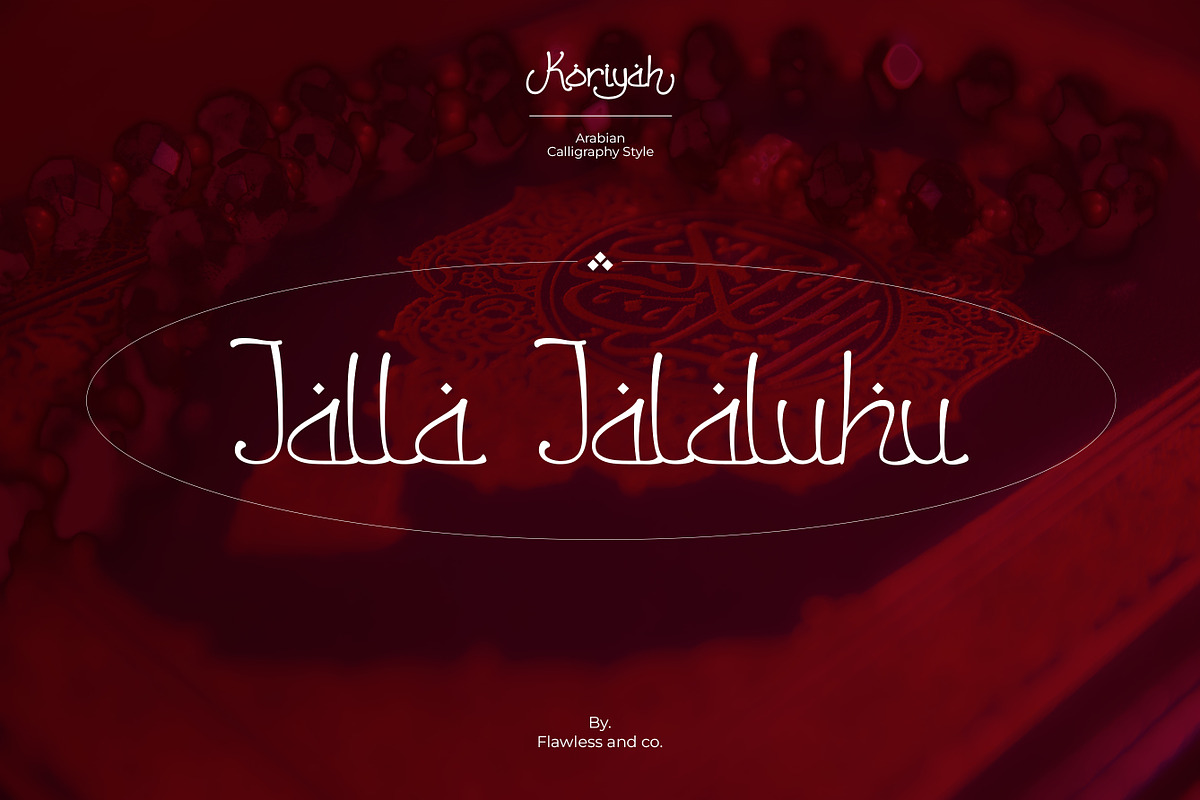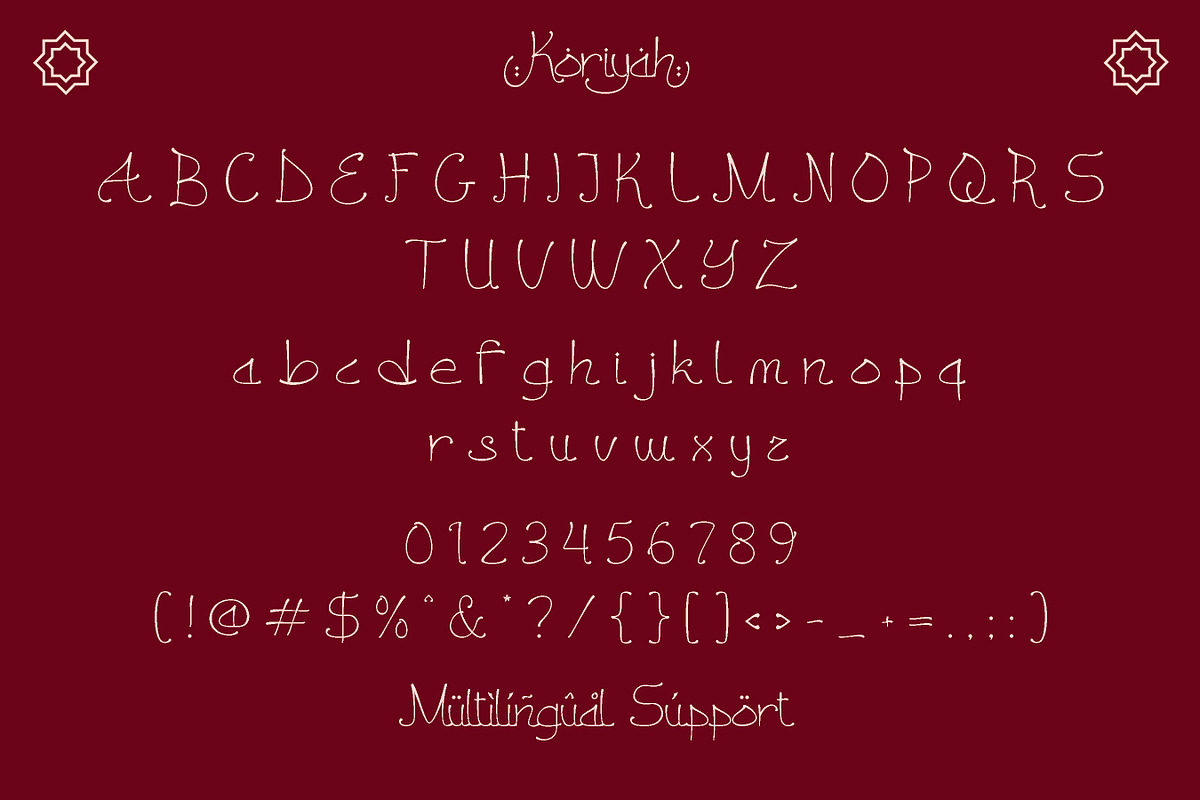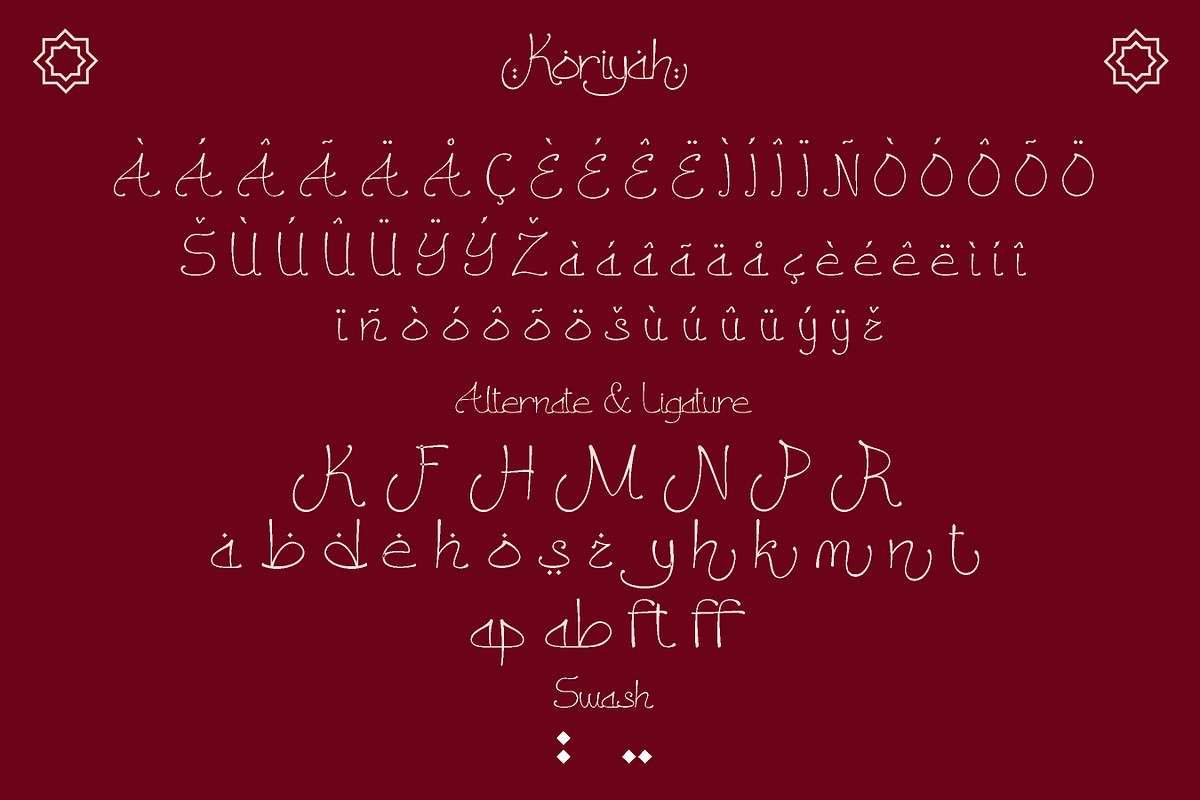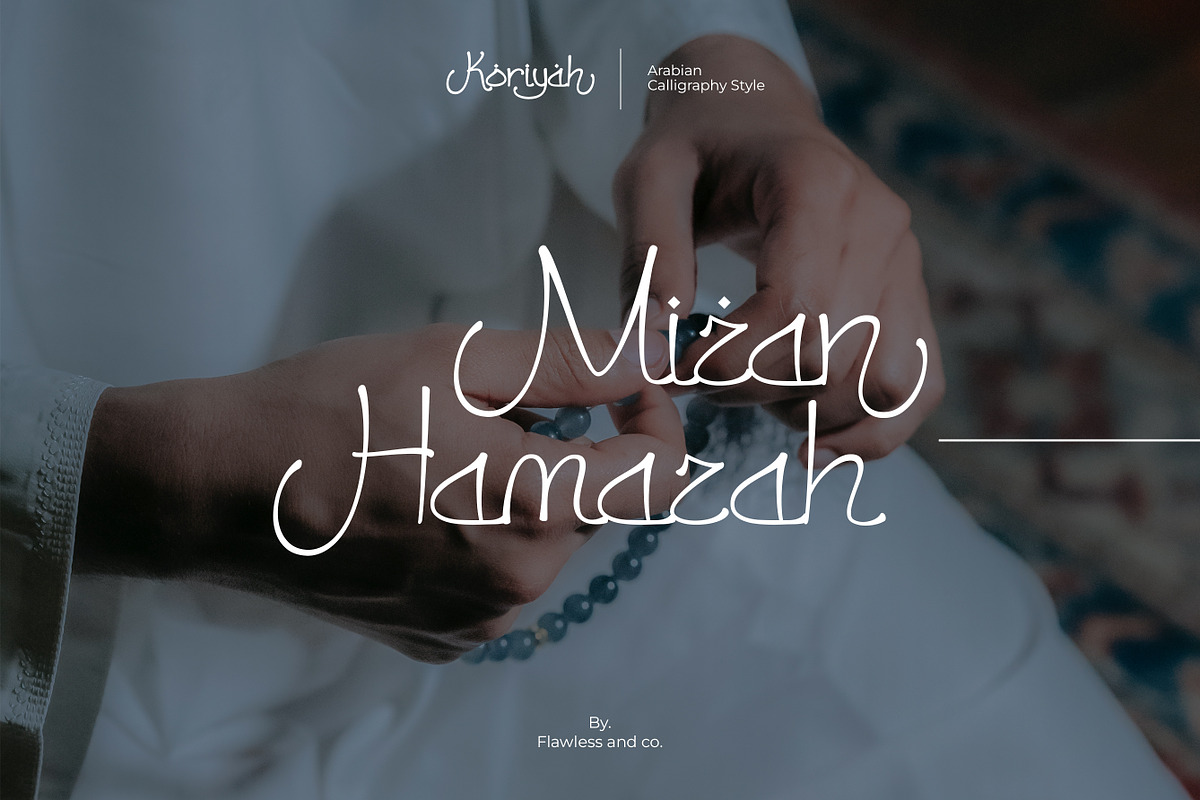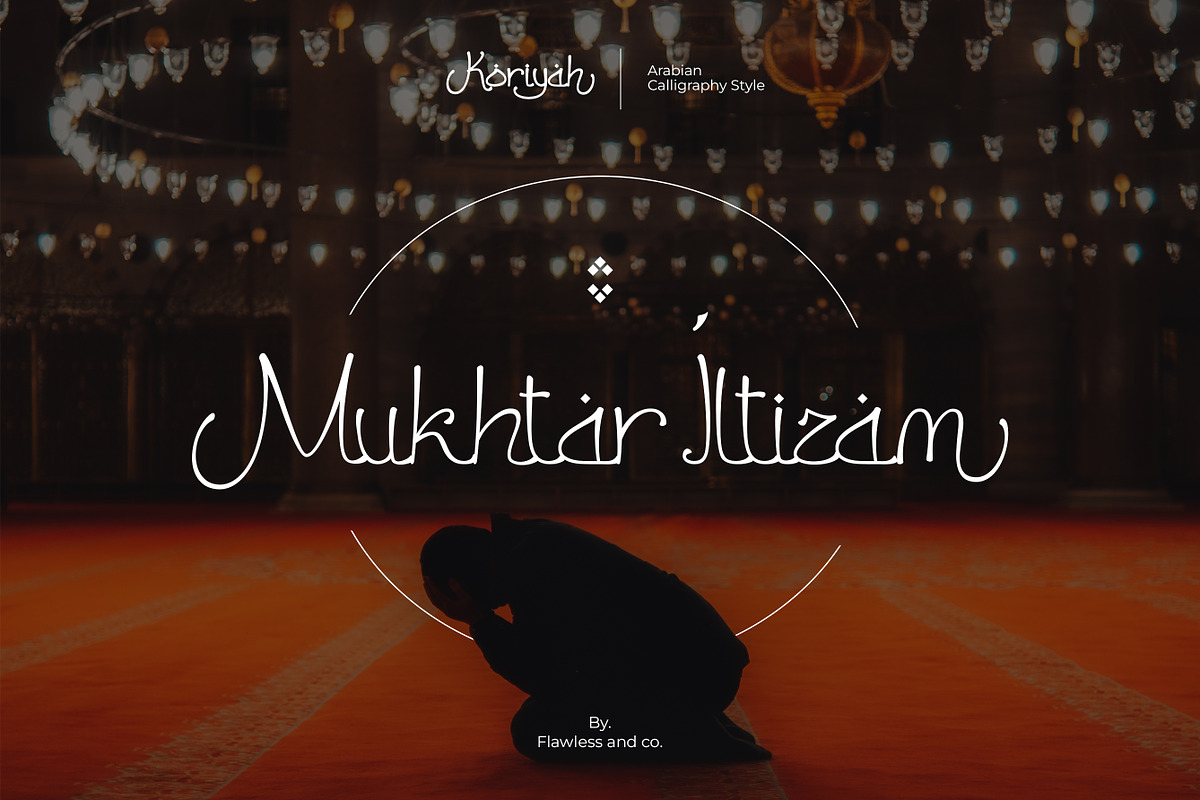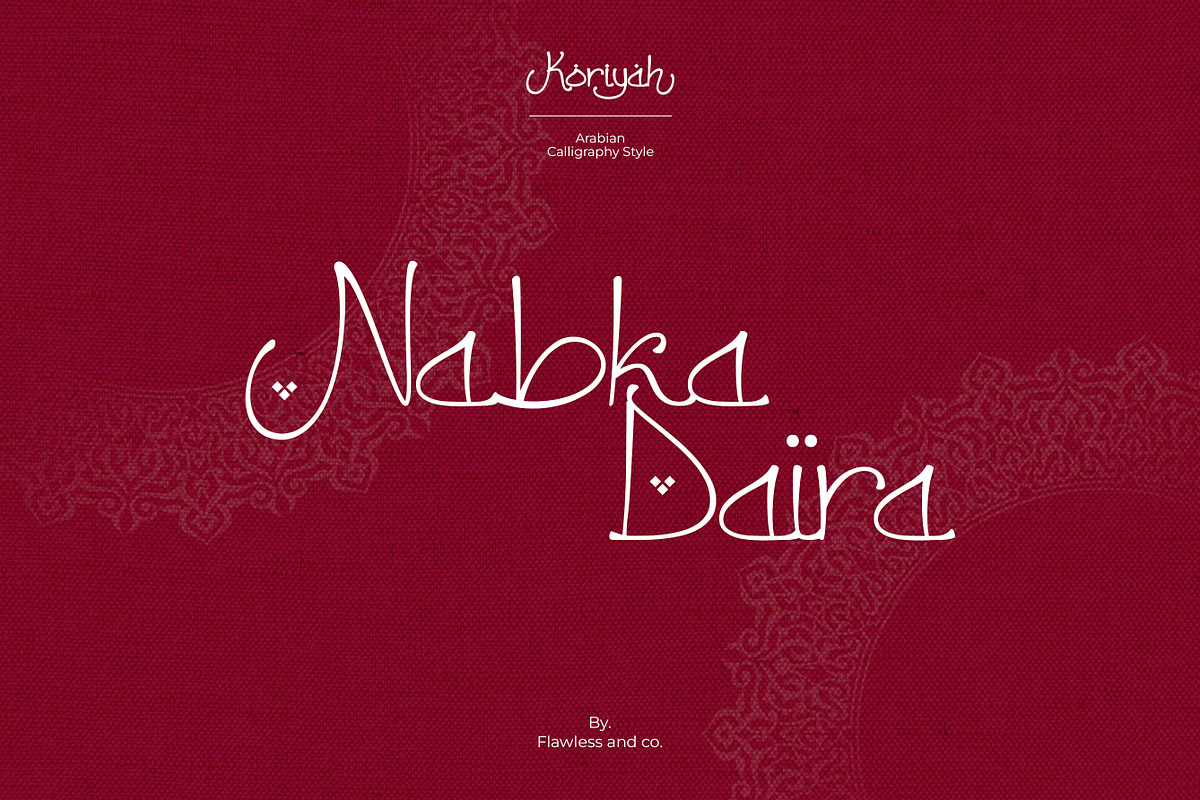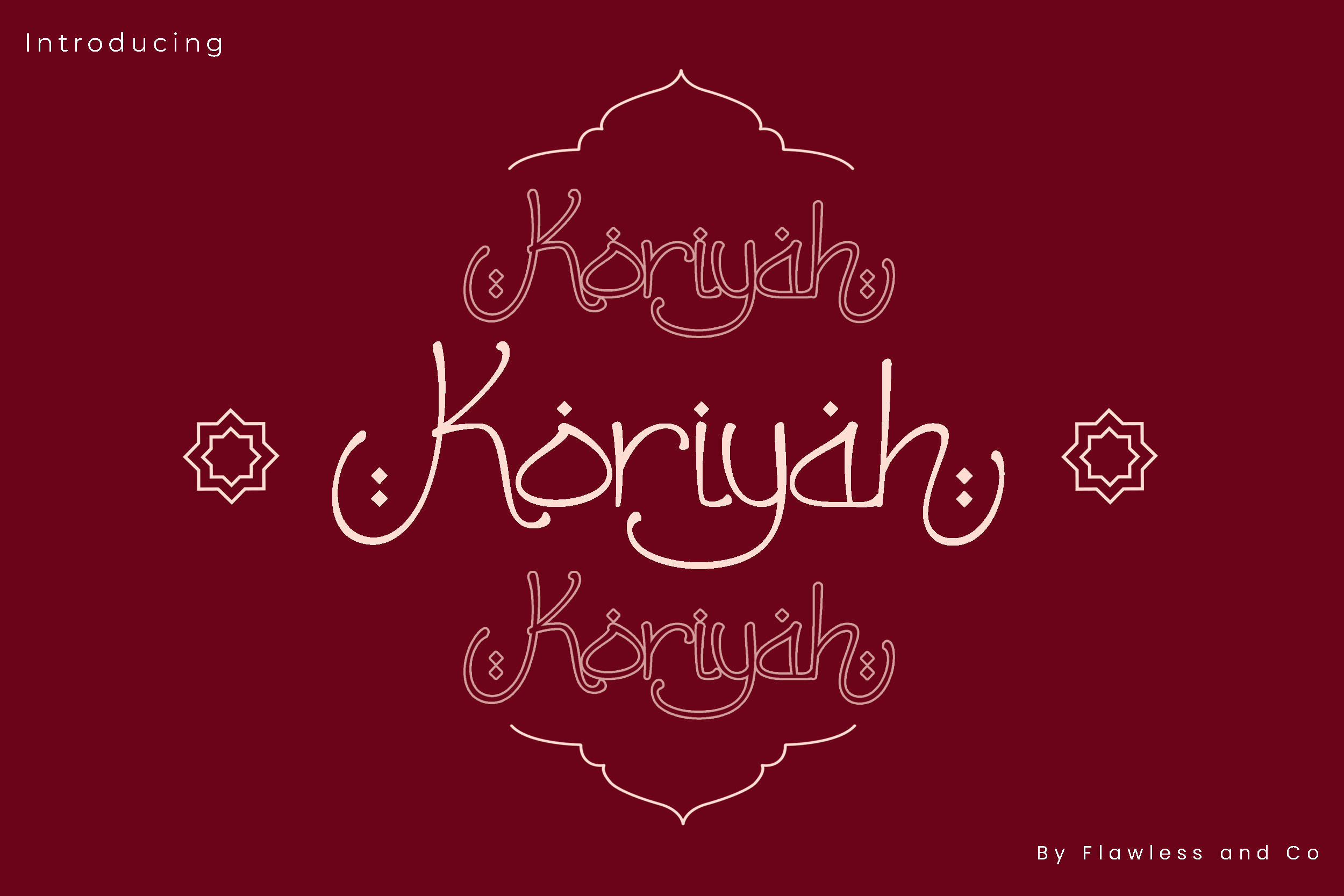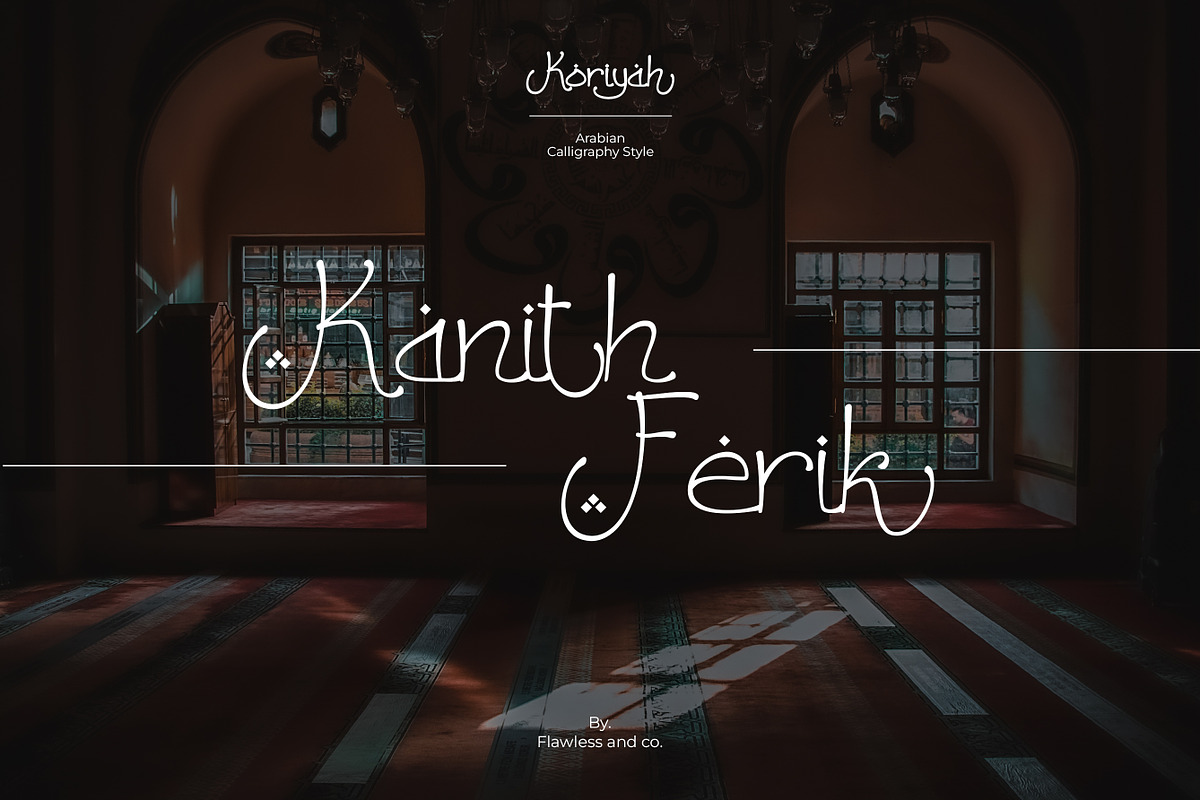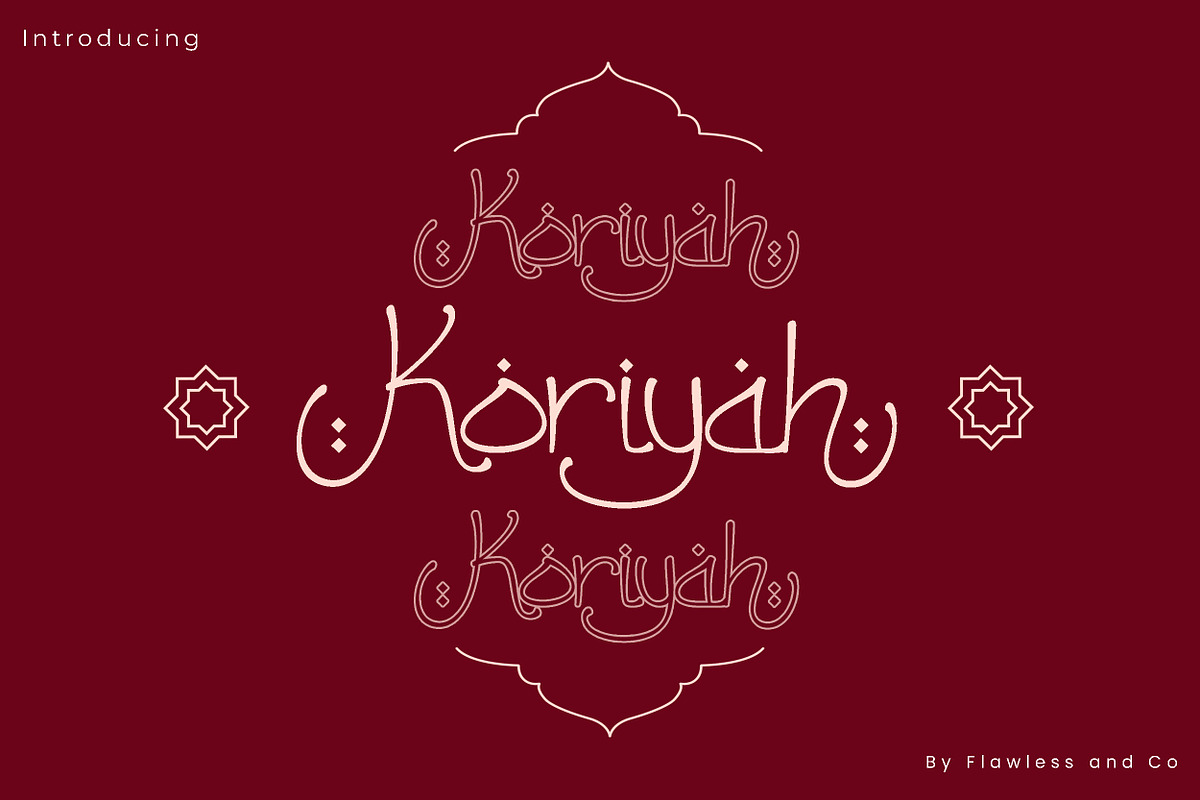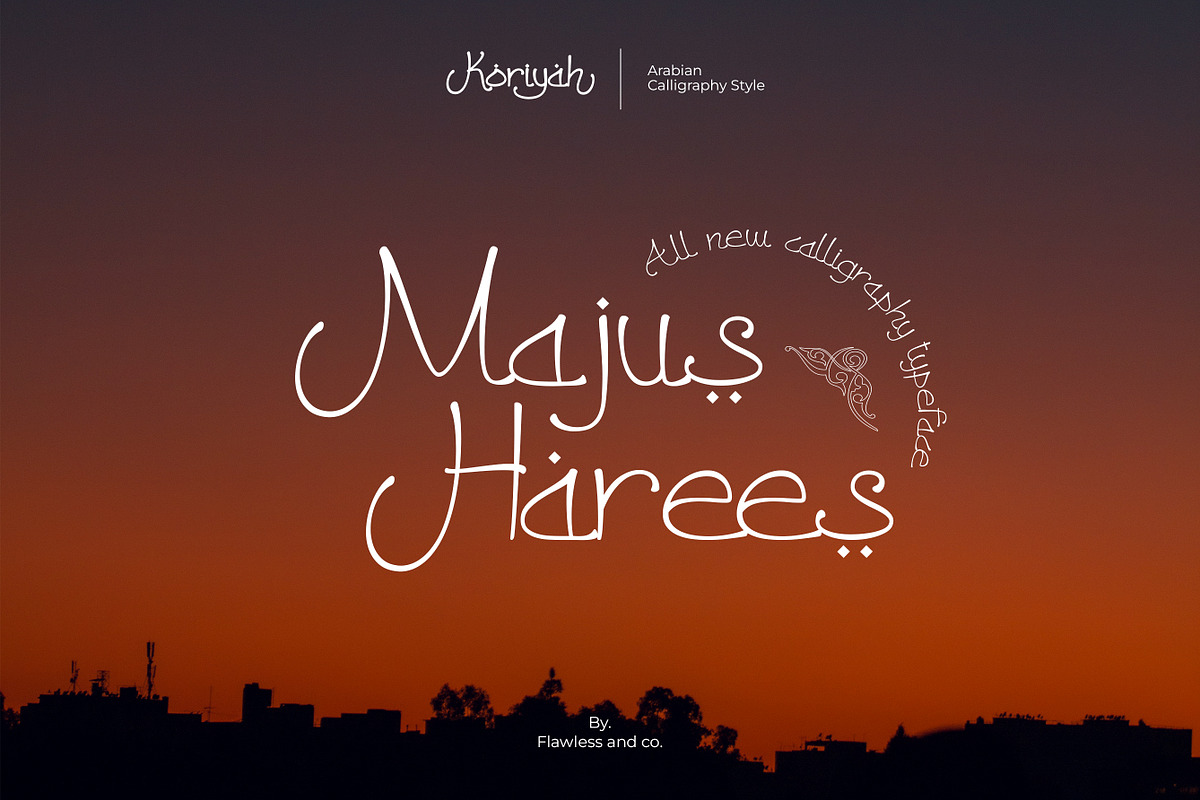
Koriyah - Ramadhan Arabic Font
Koriyah - Ramadhan Arabic Font, Challigraphy font, Religi Font, Moslem Font, Canva font, Procreate font, Cricut font, Elegant Font
Koriyah is an Arabic Font, Modern Font with Elegant Style is perfect for branding, logos, invitation, master heads, and more.
Multilingual Uppercase alphabet A-Z Lowercase alphabet a-z Italic alphaber 1-z Alternate Character Numbers 0-9 Some punctuation